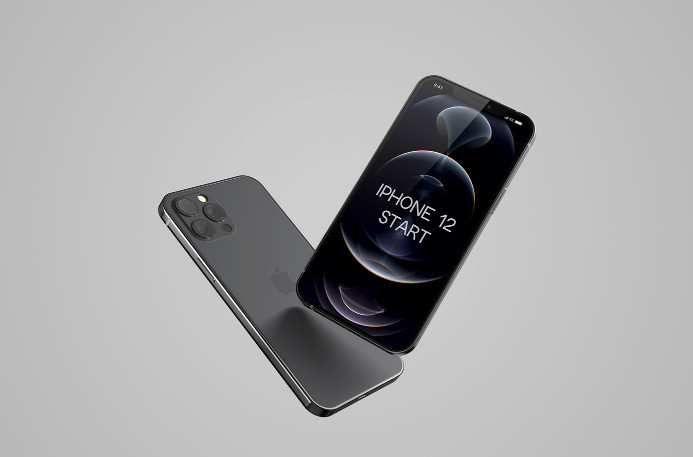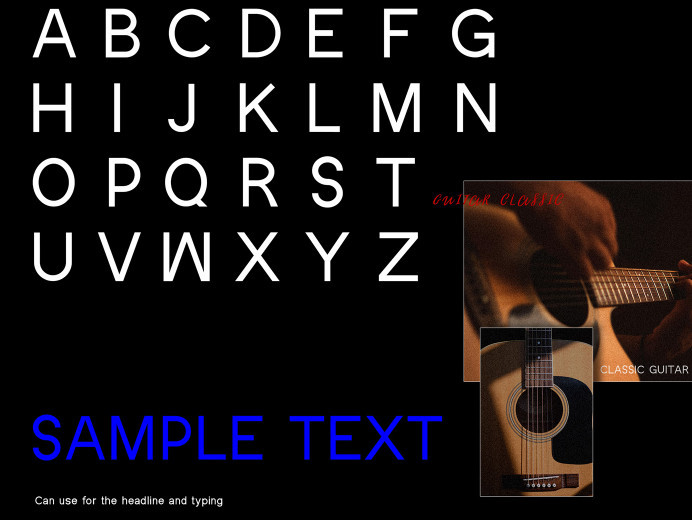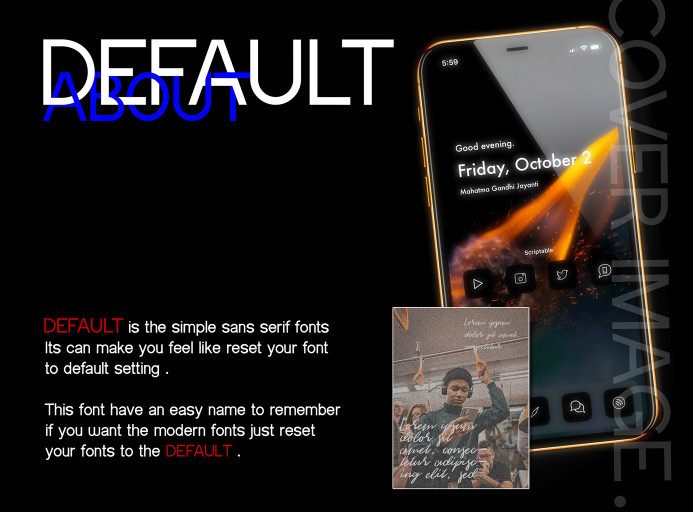
Default Font Free
Default Sans Serif Font is a free sans serif typeface designed by Chokun Choinw. It soothes your design and helps to create to balance your visualization. This font has an easy name to remember. So if you want a clean modern look just reset your fonts to the Default.